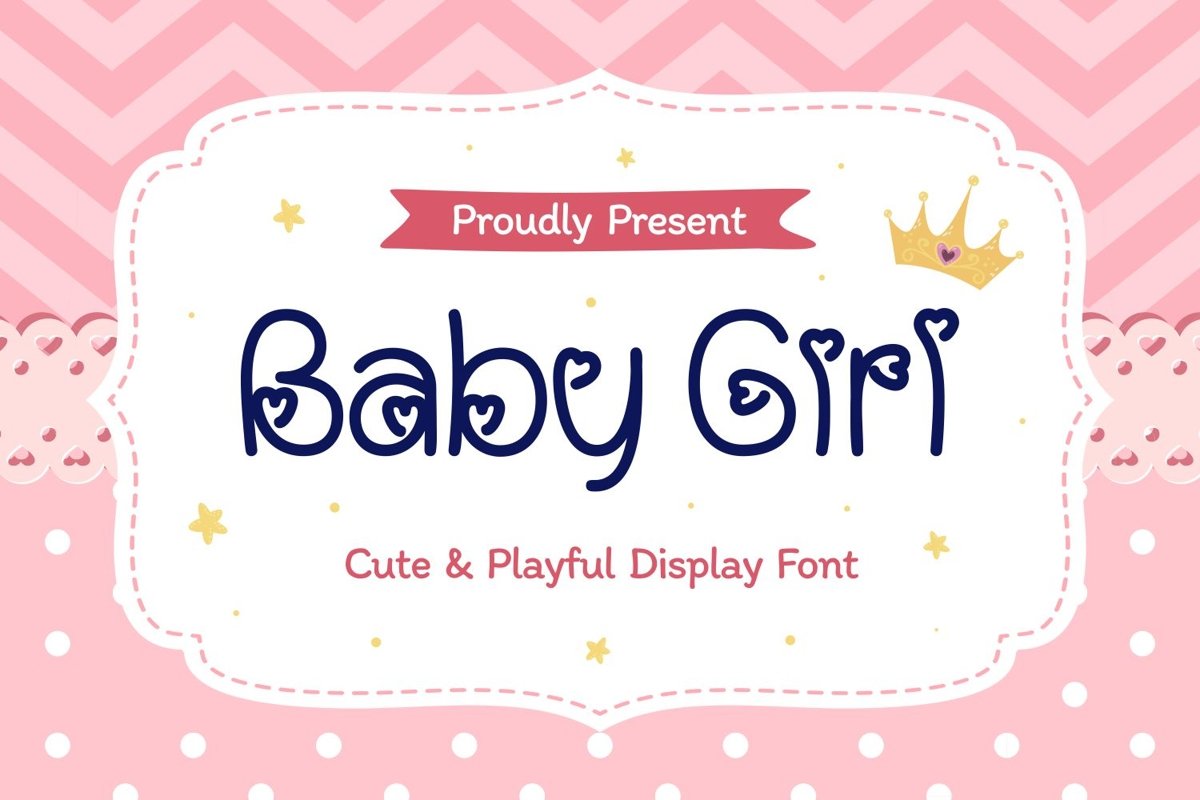
Baby Girl is a friendly decorative typeface with cute and playful themes. It matches applies in some designs such as the logotype, brand, packaging, quotes, kids poster, baby t-shirt, children book, birthday invitation and more custom design. The features uppercase, lowercase, numeral, punctuation & symbol, multilingual support, PUA encoded (fully accessible without additional design software).
Baby Girl